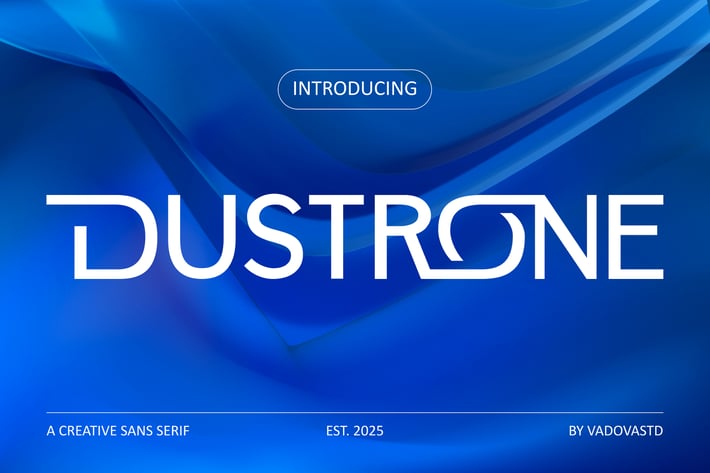
Dustrone Sans Serif Font
Dustrone is a sleek and futuristic sans serif font designed for modern branding and tech innovation. With its clean lines, subtle geometric curves, and unique glyph alternates, it brings a high-tech yet approachable feel to any design. Perfect for product packaging, digital interfaces, corporate identities, and futuristic concepts, Dustrone is both professional and visually distinctive. Its versatile structure fits seamlessly into tech industries, startups, and creative platforms looking to enhance clarity and style.